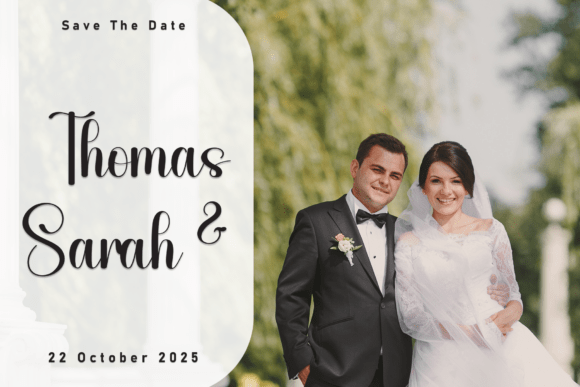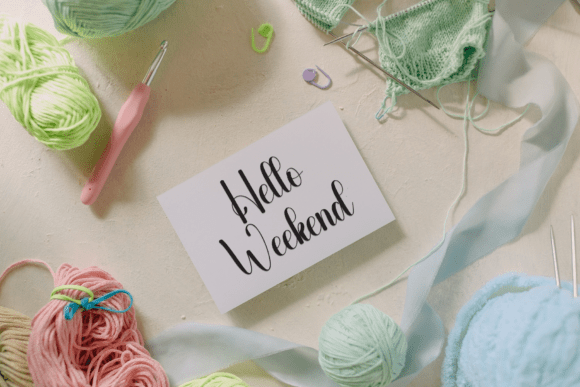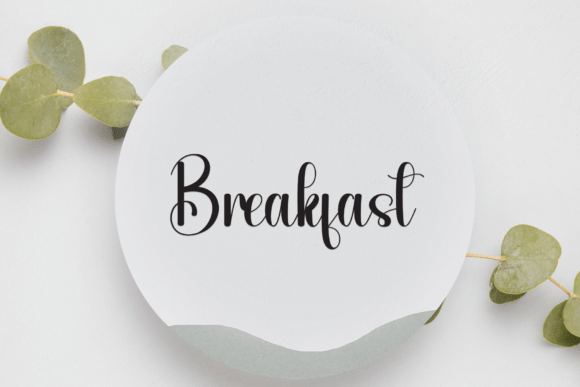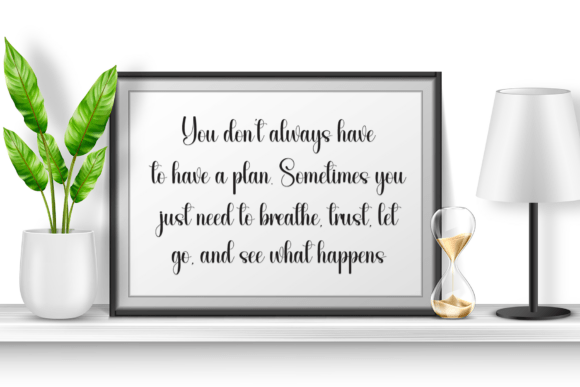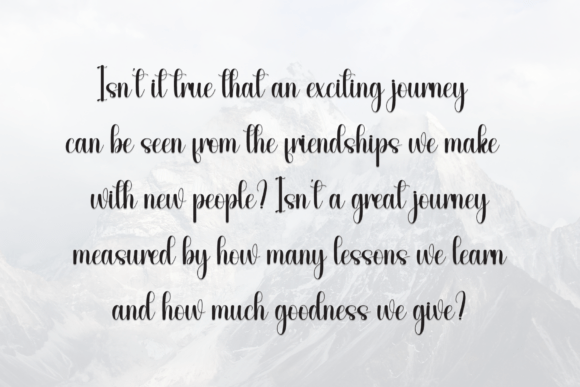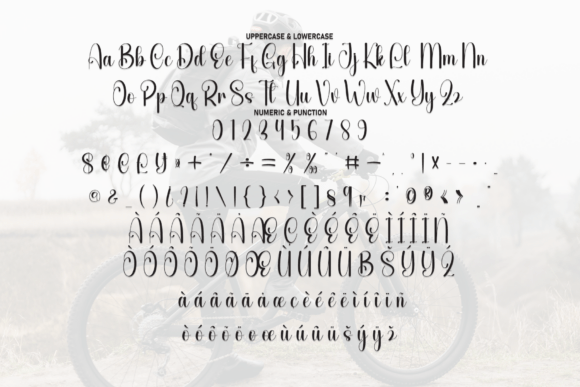
Bicycle Font: Elevate Your Designs with Elegance and Style
In the world of typography, few fonts capture the essence of refined elegance and stylish flair as beautifully as the Bicycle font. This sophisticated handwritten script font is a masterpiece of design, perfect for those who seek to add a touch of personal charm and romanticism to their projects. Whether you’re a designer, crafter, or simply someone with a passion for typography, Bicycle font is sure to inspire and elevate your creative endeavors.
The Beauty of Bicycle Font
At its core, Bicycle font is a celebration of the art of calligraphy. Its flowing curves and smooth connections evoke the gentle movement of a calligrapher’s hand, imbuing each letterform with a sense of fluidity and dynamism. The font’s unique balance of decorative swashes and clear, legible letterforms makes it an ideal choice for a wide range of applications, from branding and invitations to packaging and editorial design.
One of the standout features of Bicycle font is its varying stroke thickness. This subtle detail adds a dynamic, artistic quality to the font, making it both modern and timeless. The contrast between thick and thin strokes creates a sense of visual interest, drawing the eye through each word and sentence with a sense of fluid motion.
Bicycle font is a versatile design tool that’s perfect for a wide range of creative projects. Here are just a few ideas to get you started:
- Branding: Use Bicycle font to create elegant and sophisticated brand identities that stand out from the crowd. From logos and business cards to packaging and website headers, this font is sure to make a lasting impression.
- Invitations: Add a touch of romance and whimsy to your invitations with Bicycle font. Whether you’re planning a wedding, baby shower, or milestone birthday, this font is sure to set the tone for a special and memorable occasion.
- Stationery: Create beautiful and stylish stationery with Bicycle font, perfect for letters, notes, and other personal correspondence.
- Packaging: Use Bicycle font to add a touch of elegance and sophistication to your product packaging. From labels and tags to boxes and bags, this font is sure to elevate your brand and products.
Why Designers and Crafters Love Bicycle Font
So why do designers and crafters love Bicycle font? Here are just a few reasons:
- Unique and distinctive: Bicycle font is a one-of-a-kind design that’s sure to stand out in a sea of more generic fonts.
- Elegant and sophisticated: This font exudes a sense of refined elegance and stylish flair, making it perfect for high-end branding and design projects.
- Versatile: Bicycle font can be used for a wide range of applications, from digital design to print and packaging.
- Easy to read: Despite its decorative nature, Bicycle font is surprisingly easy to read, making it perfect for body text and longer passages.
Tips for Using Bicycle Font
Here are a few tips for getting the most out of Bicycle font:
- Use it sparingly: While Bicycle font is beautiful, it can be overwhelming if used too much. Use it sparingly to add emphasis and create visual interest.
- Experiment with colors: Bicycle font looks stunning in a range of colors, from rich jewel tones to soft pastels. Experiment with different colors to find the perfect fit for your project.
- Pair it with contrasting fonts: Bicycle font pairs beautifully with contrasting fonts, such as bold sans serifs or elegant serifs. Experiment with different pairings to find the perfect combination.
In conclusion, Bicycle font is a sophisticated and elegant handwritten script font that’s perfect for designers, crafters, and anyone looking to add a touch of refined elegance and stylish flair to their projects. With its unique balance of decorative swashes and clear, legible letterforms, this font is sure to inspire and elevate your creative endeavors.